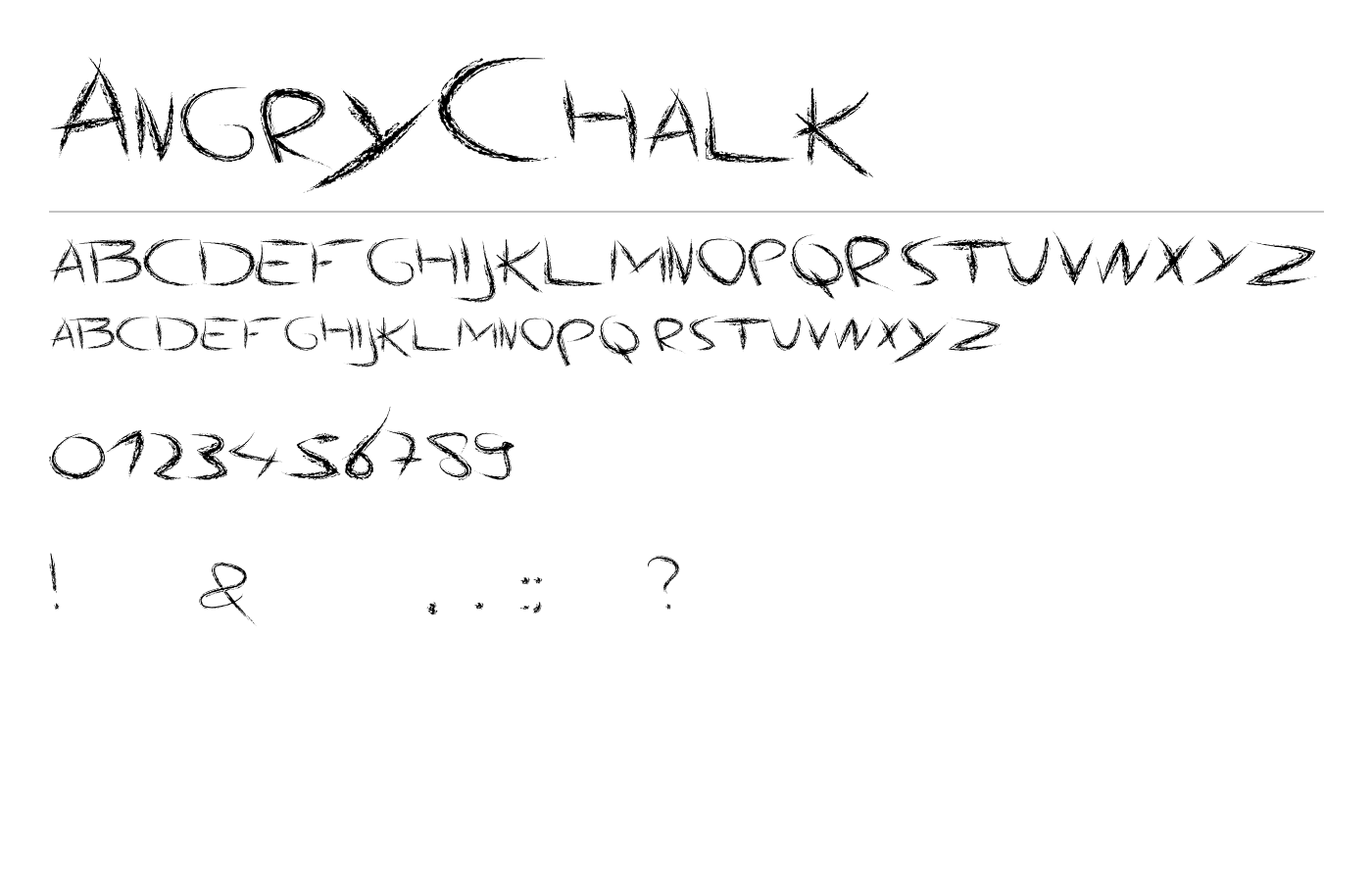
AngryChalk is a rough, hand-drawn sans serif font that mimics the texture of chalk on a blackboard with its sharp, uneven strokes and irregular shapes. Its irregular letterforms and energetic style give it a raw, rebellious vibe, making it perfect for creative projects that want a bold, edgy, or informal look. This font works best for posters, logos, or headlines where a striking, distinctive, and dynamic personality is desired.
AngryChalk Font
About AngryChalk Font